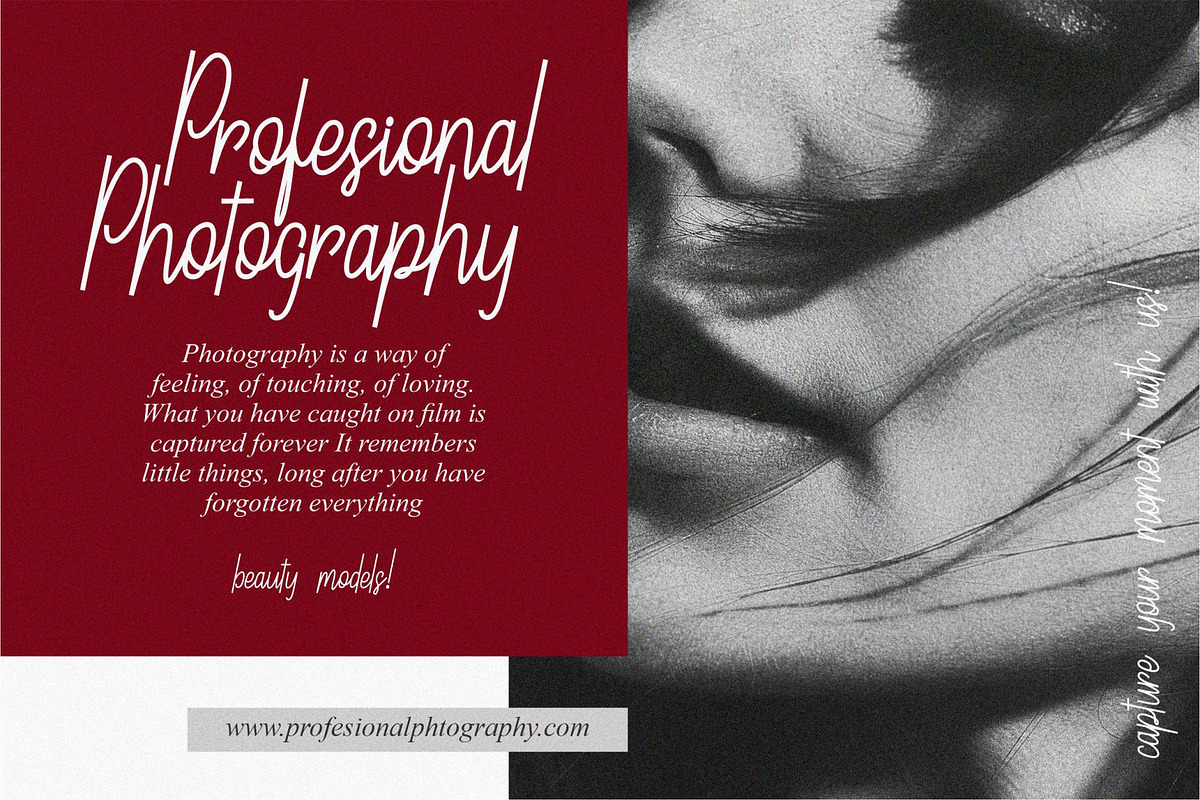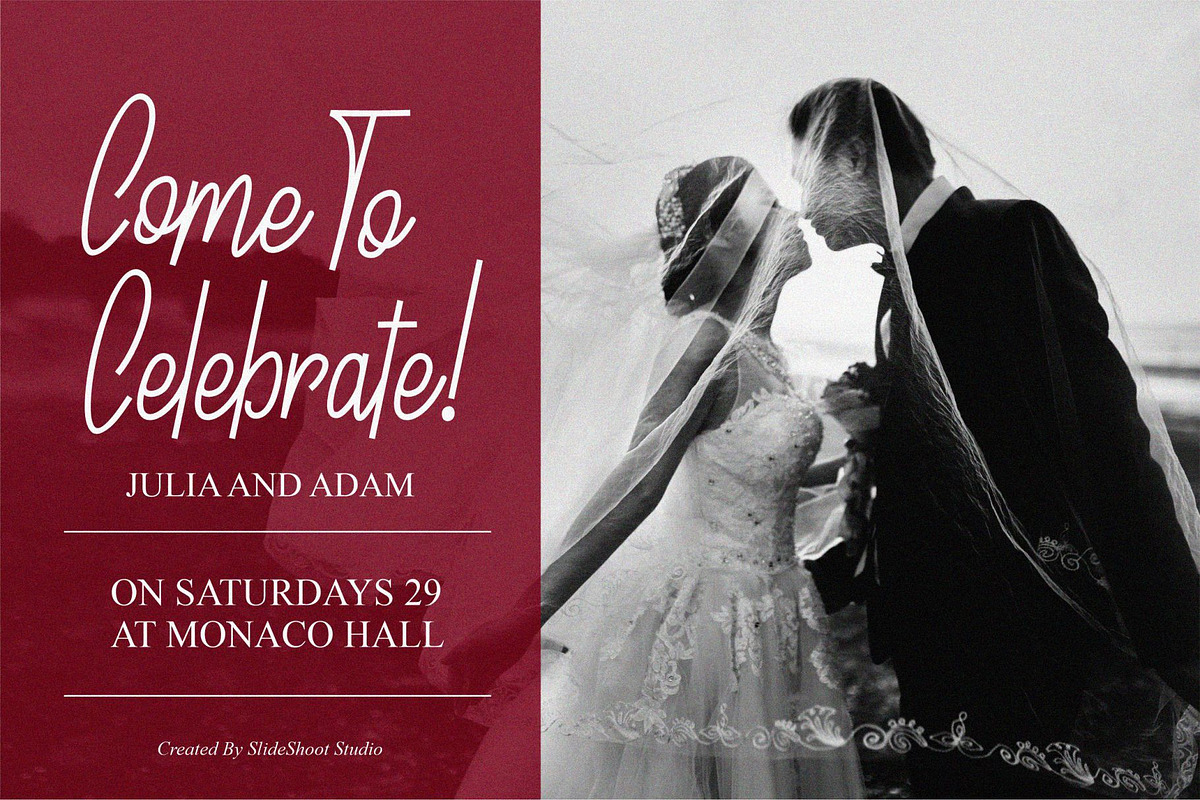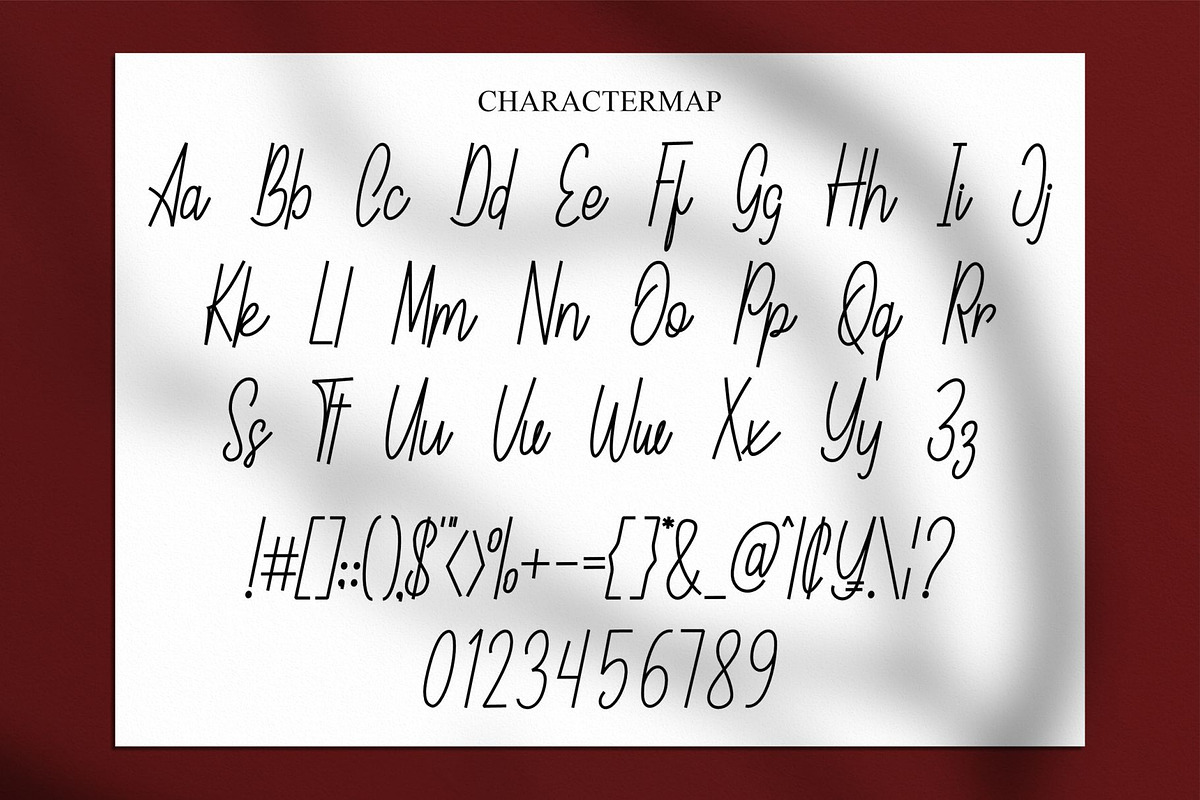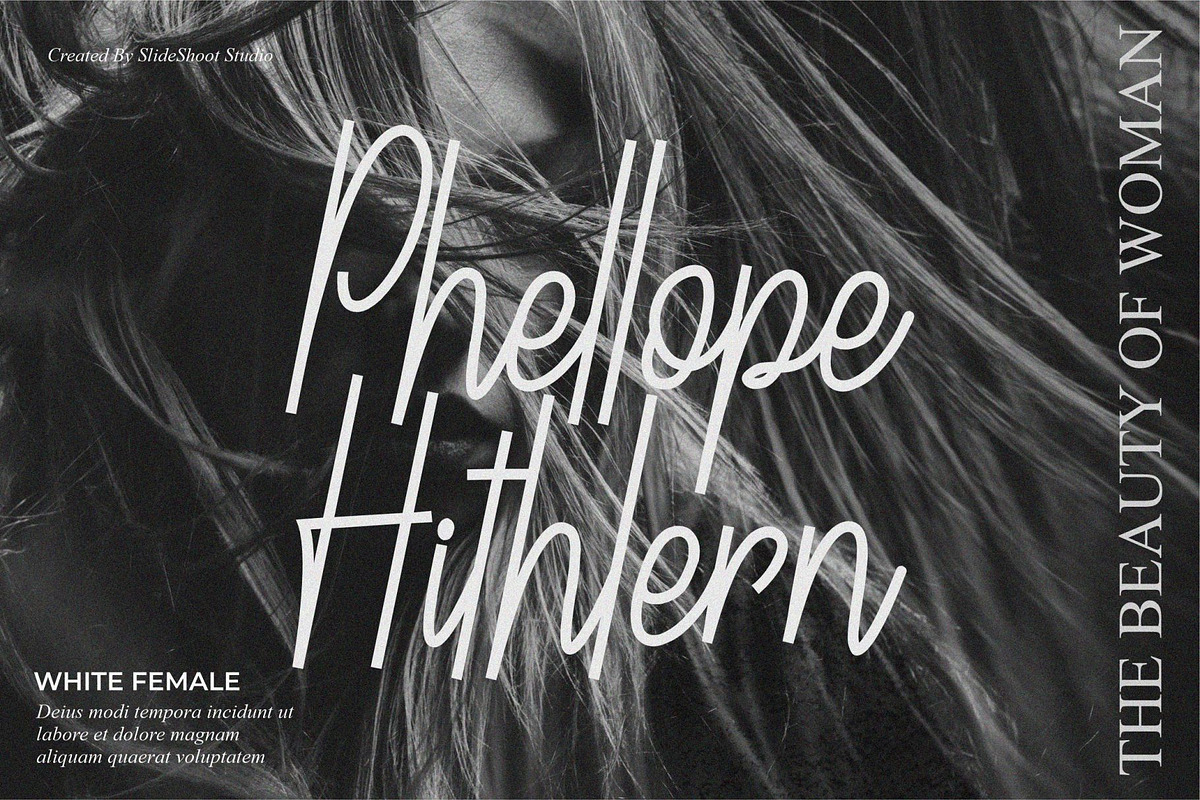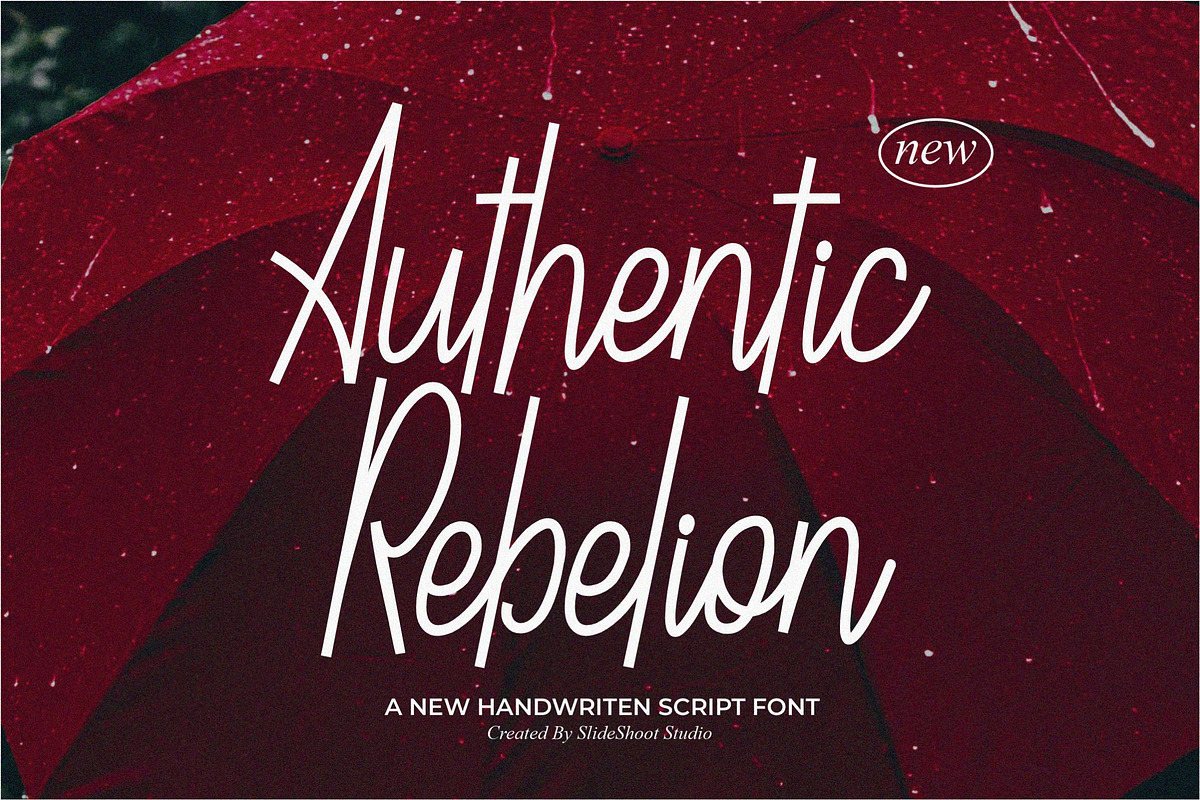
Authentic Rebelion || Handwritten
Hello everyone, I would like to introduce Authentic Rebelion a handwritten font with a casual and elegant style.
Authentic Rebelion can also be used for a variety of projects such as branding, labels, photography, invitations, stationery, wedding designs, social media posts, advertising, product packaging, product design and other awesome projects.